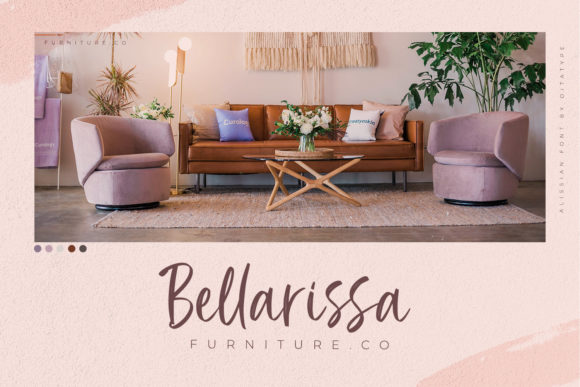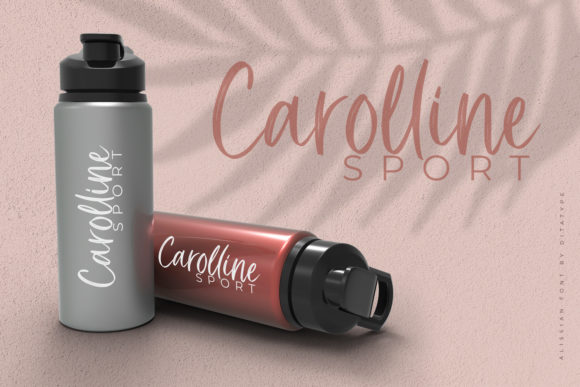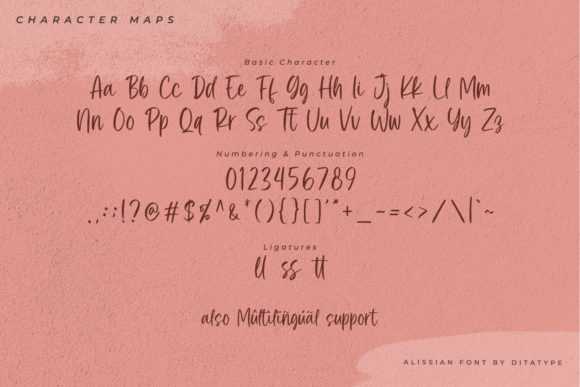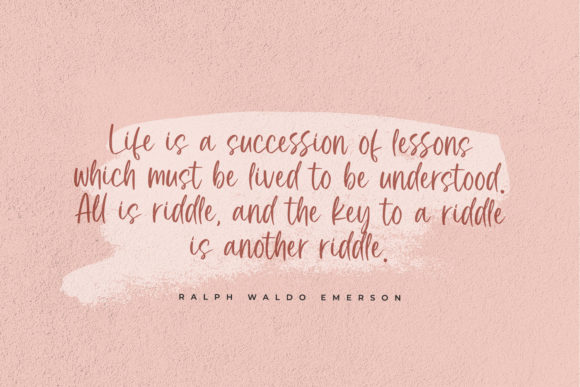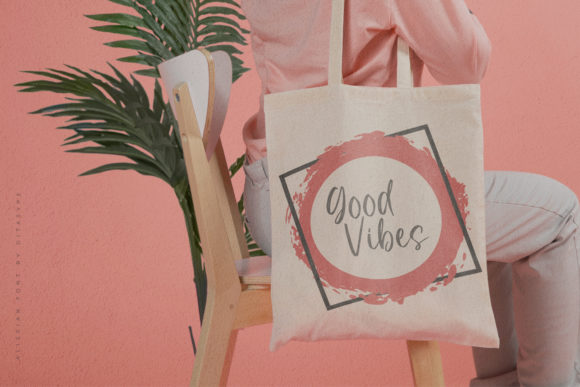
About Alissian Font
Alissian is a captivating and unique handwritten font, crafted with the artistic touch of a paintbrush. Here are some features that make Alissian stand out:
Flowing Elegance: Alissian’s graceful strokes and fluid letterforms create a sense of flowing elegance. Its smooth lines and gentle curves give the font a natural and organic feel, making it ideal for designs that seek to convey sophistication and charm.
Distinctive Style: Alissian’s distinct and one-of-a-kind style sets it apart from other handwritten fonts. Its hand-painted appearance adds a touch of artistry and craftsmanship to your designs, making them truly unique and eye-catching.
Paintbrush Texture: The paintbrush texture of Alissian adds depth and dimension to the font, giving it a handcrafted and tactile quality. The slight irregularities and imperfections in each stroke enhance its authenticity and add an artistic flair to your designs.
Versatility: Despite its distinctive style, Alissian is highly versatile and can be used in a wide range of design projects. From wedding invitations to branding materials, Alissian adapts seamlessly to various design contexts, adding a touch of sophistication and creativity to every application.
Expressive and Emotive: Alissian’s expressive letterforms evoke a sense of emotion and personality. Its flowing strokes carry a sense of movement and dynamism, breathing life into your text and creating a captivating visual experience for your audience.
Artistic Impact: Alissian is a font that makes a statement. Its artistic impact draws attention and immediately communicates a sense of creativity and artistic vision. It’s the perfect choice for projects that aim to inspire and captivate through artistic expression.
Elevating Designs: By using Alissian in your designs, you elevate them to new heights of creativity and elegance. Whether it’s a quote graphic, a logo, or any other design element, Alissian’s distinctive charm adds a touch of sophistication and allure.
Fall in love with the artistic flair and captivating beauty of Alissian, and let it be your go-to font for creating stunning and extraordinary designs. Its flowing elegance, distinctive style, and artistic impact will make your projects stand out and leave a lasting impression on your audience.